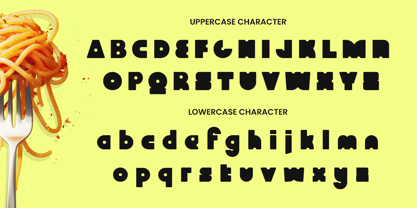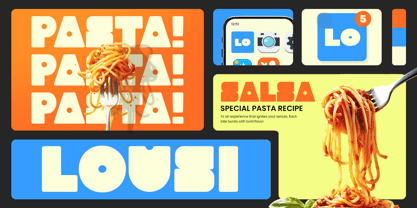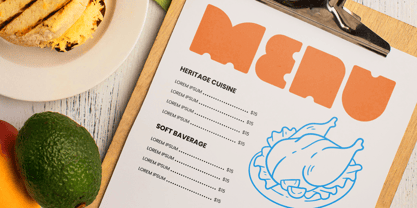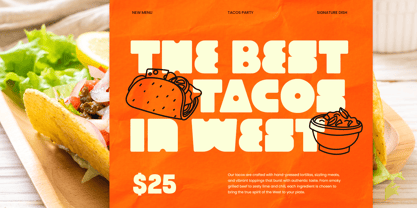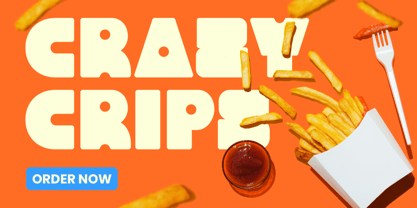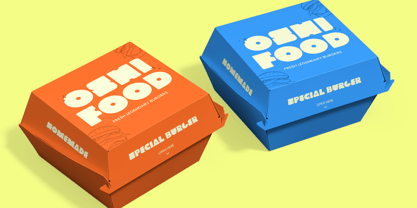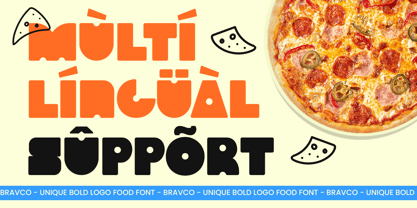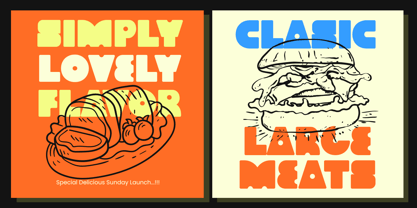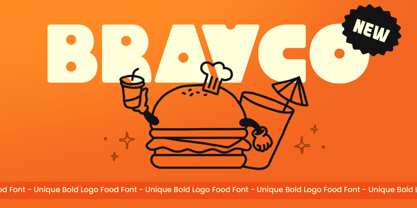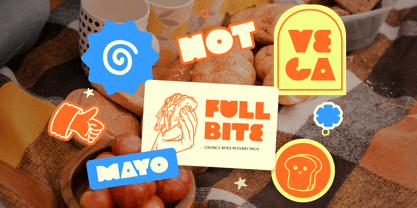
Bravco
The Bravco Font Family was designed by Zamroni Hamzah and published by Sensatype Studio. Bravco contains 1 styles. More about this family
BRAVCO is a bold, energetic food display font crafted to make your branding pop with personality and appetite appeal. With its robust letterforms and confident presence, this typeface evokes the bold flavors and lively atmosphere of contemporary cafes, eateries, and food brands. Its versatile design balances impact with readability, making every word feel fresh and flavorful.
Designed especially for branding and food packaging, BRAVCO excels in logo design, cafe signage, menus, posters, and social media graphics. The thick strokes and dynamic shapes deliver strong visual weight that draws the eye, perfect for headlines and titles that need to communicate quality and style at a glance.
Whether you’re launching a trendy coffee shop, gourmet food truck, or artisanal bakery, BRAVCO elevates your visual identity with a bold, modern voice. Its food-friendly personality pairs beautifully with vibrant color palettes and appetizing imagery to enhance every touchpoint of your brand experience.
BRAVCO – Bold Food Font Features
• Bold, high-impact display character set ideal for food branding
• Perfect for logos, cafe signage, menu headers, and packaging
• Clear readability at large sizes for posters and outdoor advertising
• Includes uppercase, numerals, punctuation, and stylistic alternatives
• Supports digital and print design workflows
• Versatile for social media marketing and promotional materials
• Works seamlessly with modern and vintage food aesthetics
• Optimized for attention-grabbing headlines and titles
Make your food brand unforgettable with BRAVCO – a bold, appetizing display font crafted for standout logos and cafe experiences 🍽️.